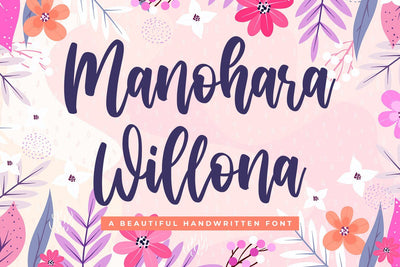
Manohara Willona - Modern Script Font
Manohara Willona is a sweet and beautiful script font. Fall in love with its cute and joyful style and use it to create gorgeous wedding invitations, beautiful stationary art, eye-catching social media posts, and much more!